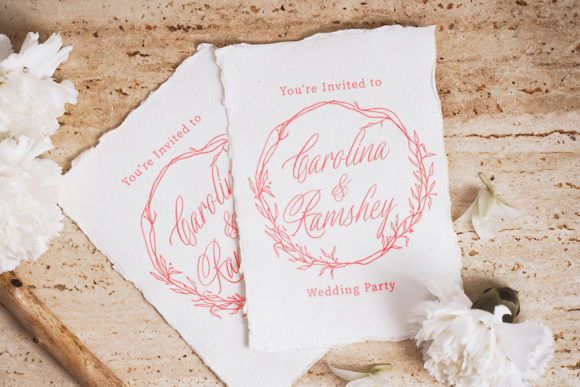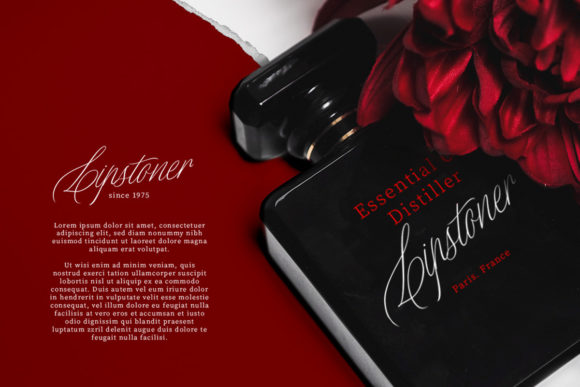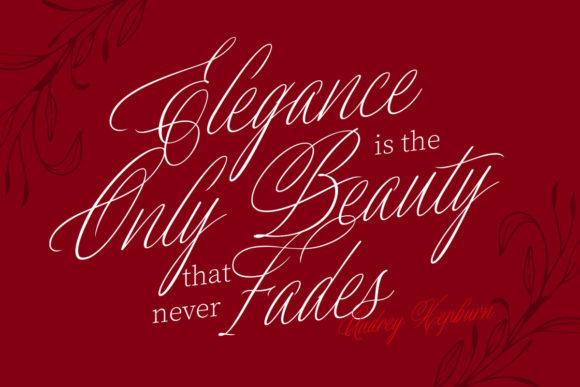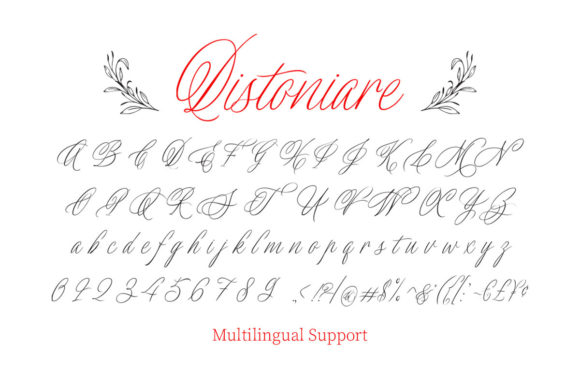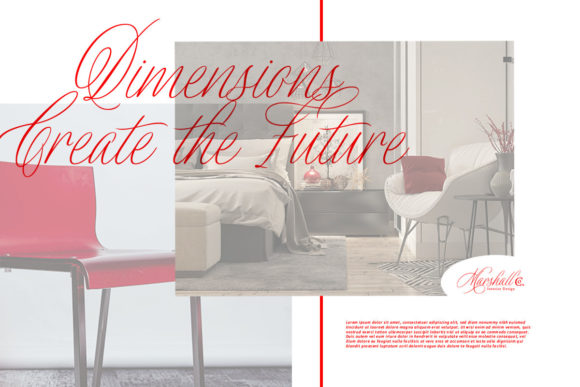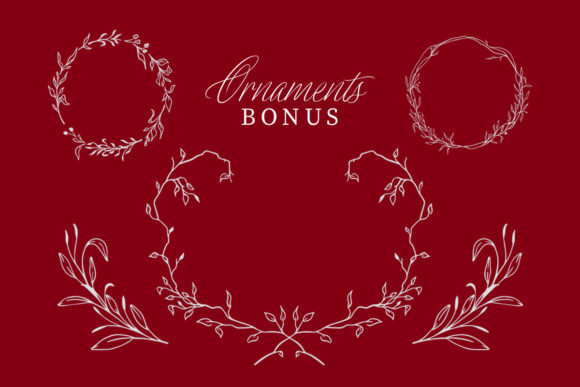
Introduction to Distoniare Script Font
Distoniare is a pretty script font based on authentic handwriting with a natural signature style.
You can use this font especially in logos, invitations, labels, magazines, books, greeting/wedding cards, packaging, fashion, makeup, stationery, novels, labels, or any other advertising purpose .
Key Features of Distoniare Script Font
Distoniare Script Font offers exceptional quality and versatility, making it a valuable addition to your design toolkit. Whether you’re creating for personal projects or commercial use, Distoniare Script Font delivers professional results.